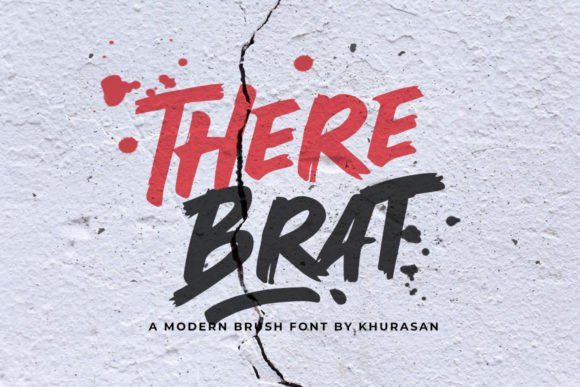
Dive into the realm of captivating calligraphy with There Brat Font, a striking script font that exudes personality and charm. Step into a world where your designs leap off the page, capturing hearts and imaginations with every stroke. Let the bold lines and playful curves of There Brat take center stage, transforming your projects into masterpieces that resonate with your audience.
Unleash your creativity with a font that's as versatile as it is visually stunning. Whether you're crafting posters that demand attention, logos that leave a lasting impression, or magazine covers that ignite curiosity, There Brat is your ultimate ally. Create book covers that transport readers to enchanting worlds, design banners that command attention, and let your imagination run wild as you explore the endless possibilities.
There Brat isn't just a font; it's an artistic journey that invites you to transcend the ordinary and embrace the extraordinary. It's a passport to a world where your designs become captivating stories, where every letter tells a tale, and every word carries a weight of emotion. Let There Brat be your guiding light, leading you to design greatness.
Join the ranks of creative visionaries who have harnessed the power of There Brat to elevate their projects to new heights. Experience the thrill of seeing your designs come alive, radiating with a unique charm that sets them apart from the mundane. Embrace the There Brat revolution and watch as your creations captivate and inspire, leaving an indelible mark on the minds of those who encounter them.